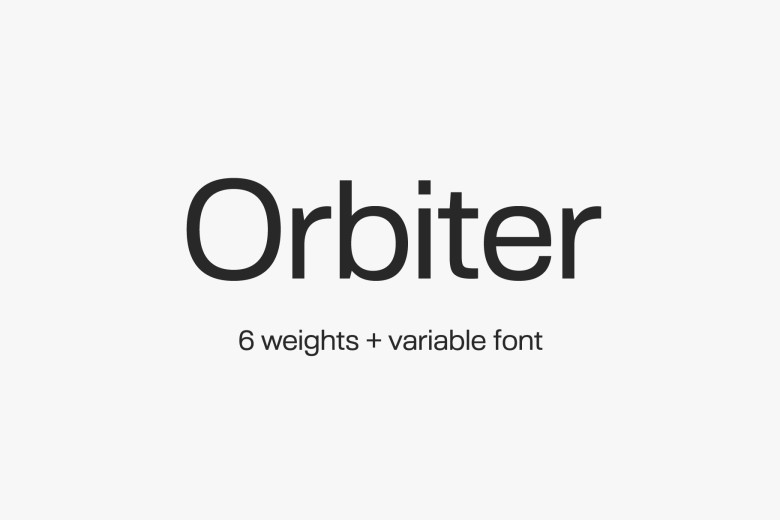
Orbiter Font Family
Orbiter is an everyday-use sans-serif font family designed for everyday use, featuring a slightly squared and grotesque design with large x-height and joints with chamfered joints that stand up when placed in small fonts or large signs.
Orbiter Sans Serif Font Family